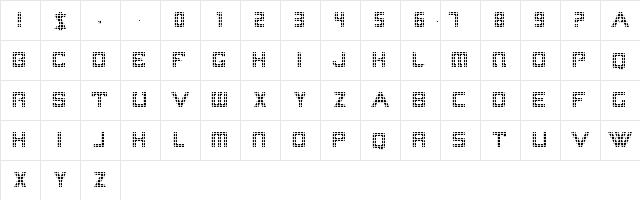
universatario trace Regular Font Preview
universatario trace Regular
universatario trace Regular Font Details
| Designer | walkerws |
| Copyright | Copyright walkerws 2010 universatario trace is based on universatario by walkerws http://fontstruct.fontshop.com/fontstructors/walkerws), which is based on assault_hockey by walkerws http://fontstruct.fontshop.com/fontstructors/walkerws) |
Design Context for universatario trace Typeface
universatario trace takes a measured approach to typography — its balanced proportions and neutral character make it a reliable workhorse for both digital and print work.